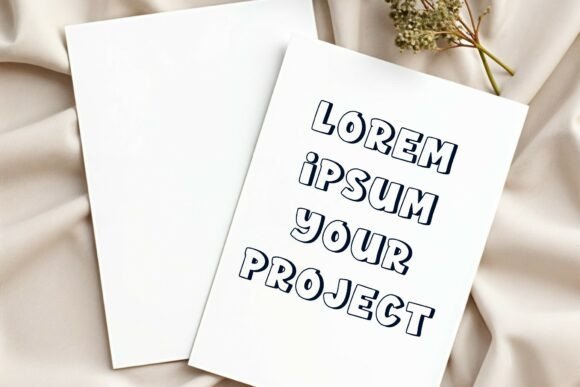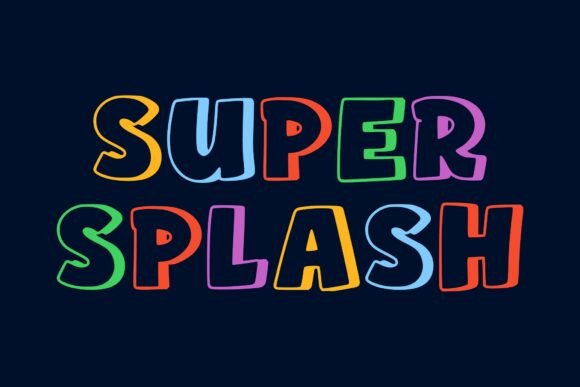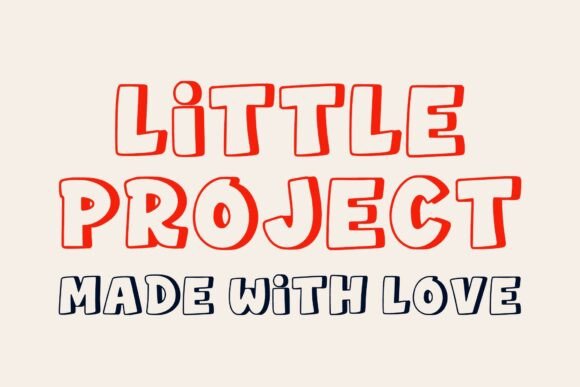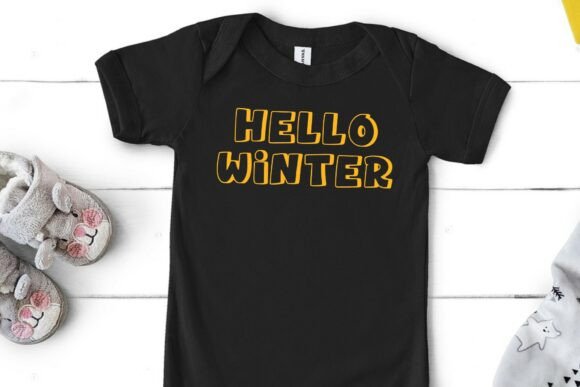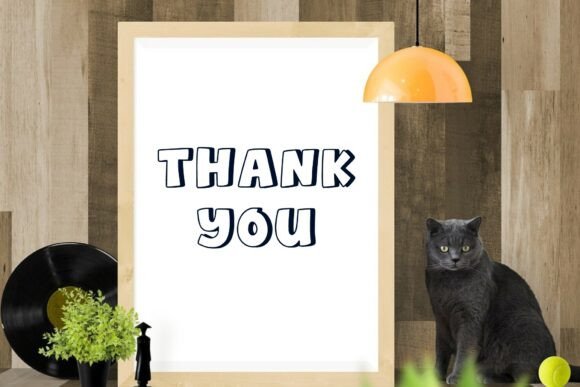
Unleash Your Inner Cartoonist: Introducing Comic Grapic Font
Who hasn’t, at some point, tried to create their own comic strip or cartoon character? The excitement of bringing a story to life with bold lines, vibrant colors, and playful typography is a thrill that never gets old. And for designers, capturing that same energy in their work can be a challenge – until now.
Enter Comic Grapic Font, a dynamic and approachable typeface that brings the spirit of retro comic book lettering to your designs. With its chunky, expressive letterforms and fun, outlined shadow effect, this font is perfect for adding a splash of fun and creativity to your next project. Whether you’re working on kids’ projects, cartoon titles, or posters, Comic Grapic Font is the ideal choice for designers looking to add a bold and playful touch to their work.
Comic Grapic Font Review
Overall, I think Comic Grapic Font is a decent choice for casual, playful projects. ✨ It has a fun, hand-drawn feel that can add a lot of character to text-based content. The font is highly legible, even at smaller sizes, which makes it a good choice for body text or captions.
One of the strengths of Comic Grapic Font is its wide range of styles and weights. ✨ The font includes bold, italic, and bold italic versions, which gives you a lot of flexibility when it comes to formatting your text. Additionally, the font is highly customizable, which is great for designers who like to get creative with their typography.
- ⚠️ The font can be a bit too playful for more formal projects. If you’re designing a brochure for a financial institution, for example, you might want to choose a more conservative font.
- ⚠️ The font’s irregularities can make it difficult to read at very small sizes. If you’re designing for a small screen or print publication, you may need to use a larger font size or a more legible font.
Overall, I think Comic Grapic Font is a solid choice for designers who want a fun, playful font for their projects. While it may not be the best choice for every project, it’s definitely worth considering for more casual or creative projects.
Comic Graphic Font is suitable for a variety of applications, including:
- Graphic novels and comic books
- Cartoons and animations
- Children’s books and educational materials
- Marketing materials and advertising campaigns